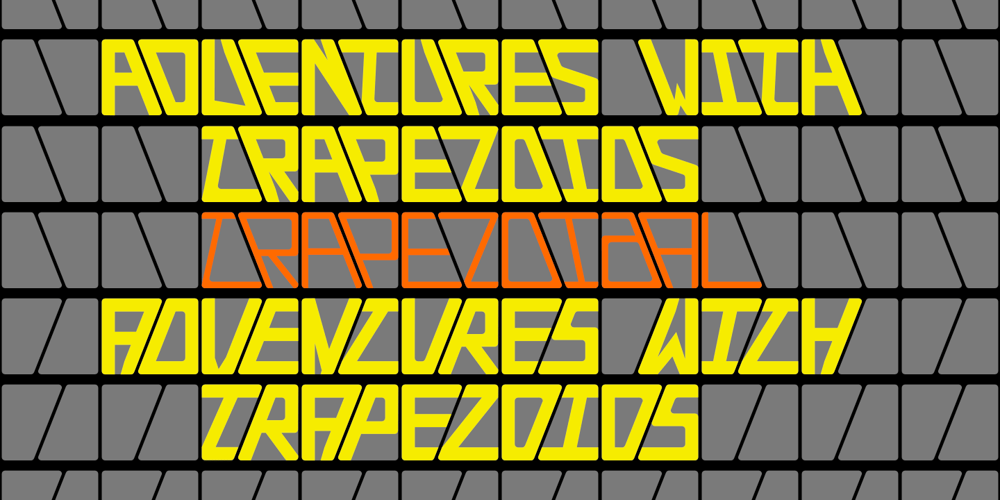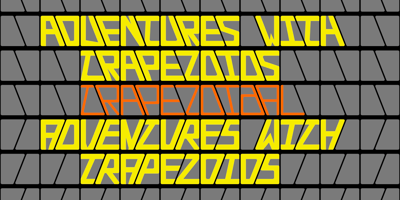
Trapezoidal
Trapezoidal font
Trapezoidal Font Family was designed by Robert Schenk and published by Ingrimayne Type. Trapezoidal contains 10 styles and family package options. The letters of Trapezoidal are like sheep: they do not like being alone but want to be part of a flock. Many of the individual letters of Trapezoidal look strange and unshapely in isolation because they are designed to fit into a pattern with other letters. That pattern is formed by alternating asymmetric trapezoids, with trapezoids that are wide at the top alternating with trapezoids that are wide at the bottom. The magic of the OpenType feature of contextual alternatives (calt) automatically alternates them. The fonts in the family are largely monospaced and have very tight letter spacing. (If for some reason one wants to use only one set of the letters, the letters will overlap unless one widens character spacing.) (If D and O are too similar, use the alternative versions of D.)The family has five weights and each weight has an italics formed by flipping the trapezoidal pattern over a vertical line. Like other alternating-character typeface families from IngrimayneType, this distinctive and visually-arresting family can be used for titles or advertising. (For another but very different typeface based on alternating trapezoids, see PoultrySign.)